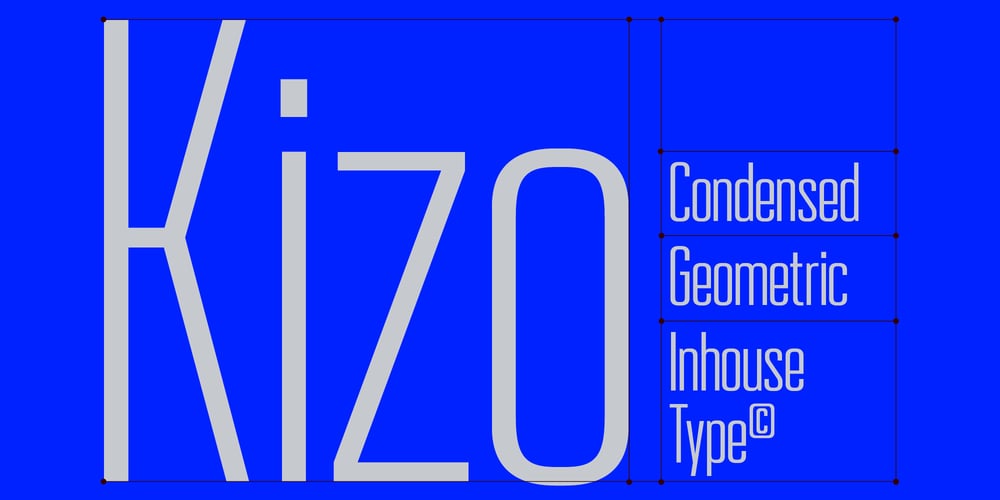
Kizo Font Family was designed by Mariya Lish and published by Inhouse Type. Kizo contains 4 styles and family package options. Kizo is a geometric condensed sans serif. Inspired by the urban modernist architecture, the font is functional, rational, utilitarian and subtle in its nature. Created for display use, Kizo offers a number of alternative characters. Built for maximum clarity and with attention to detail, Kizo features ink traps. Details include 4 weights, 434 characters and open type features.